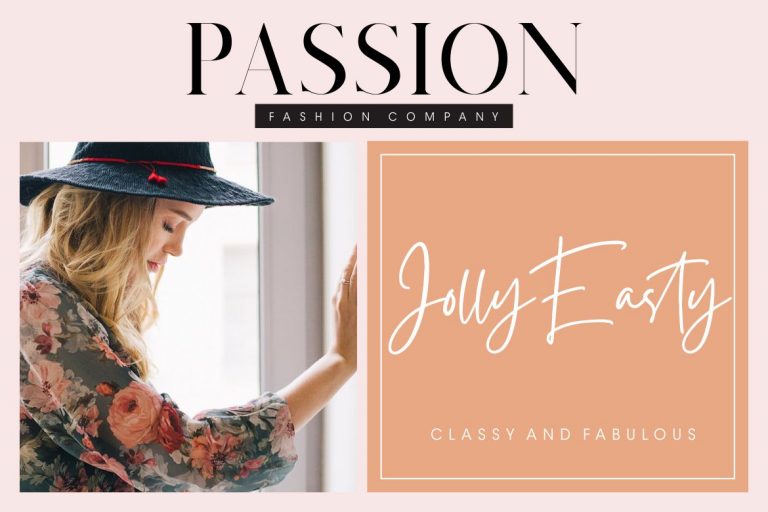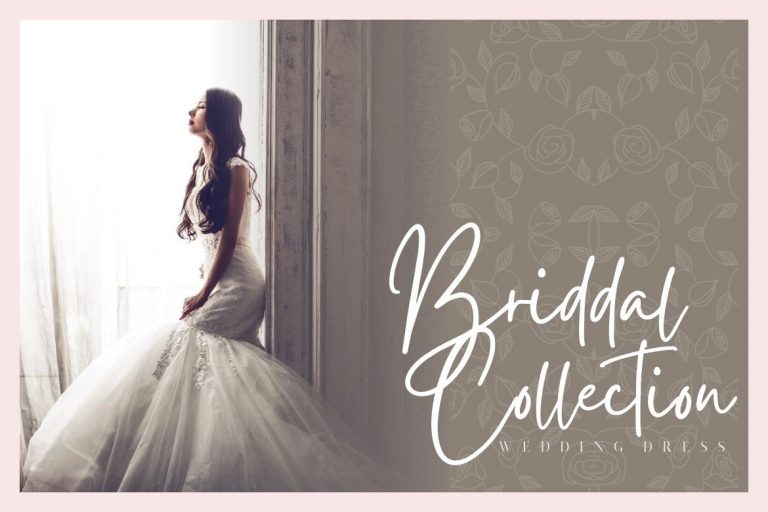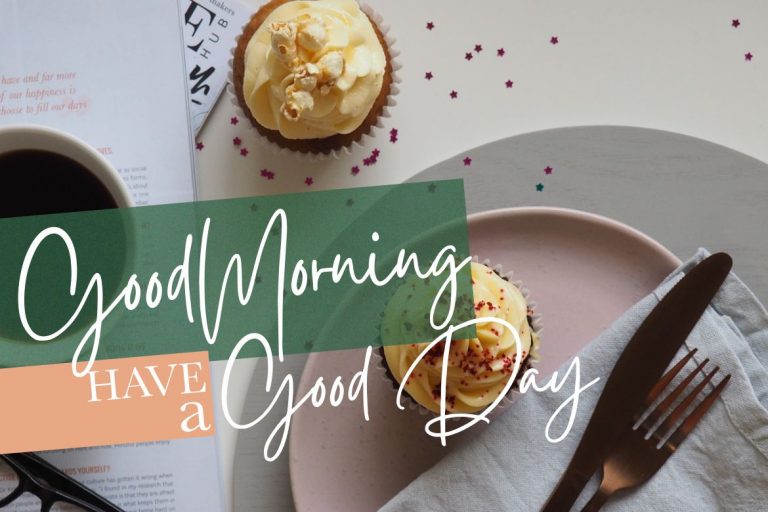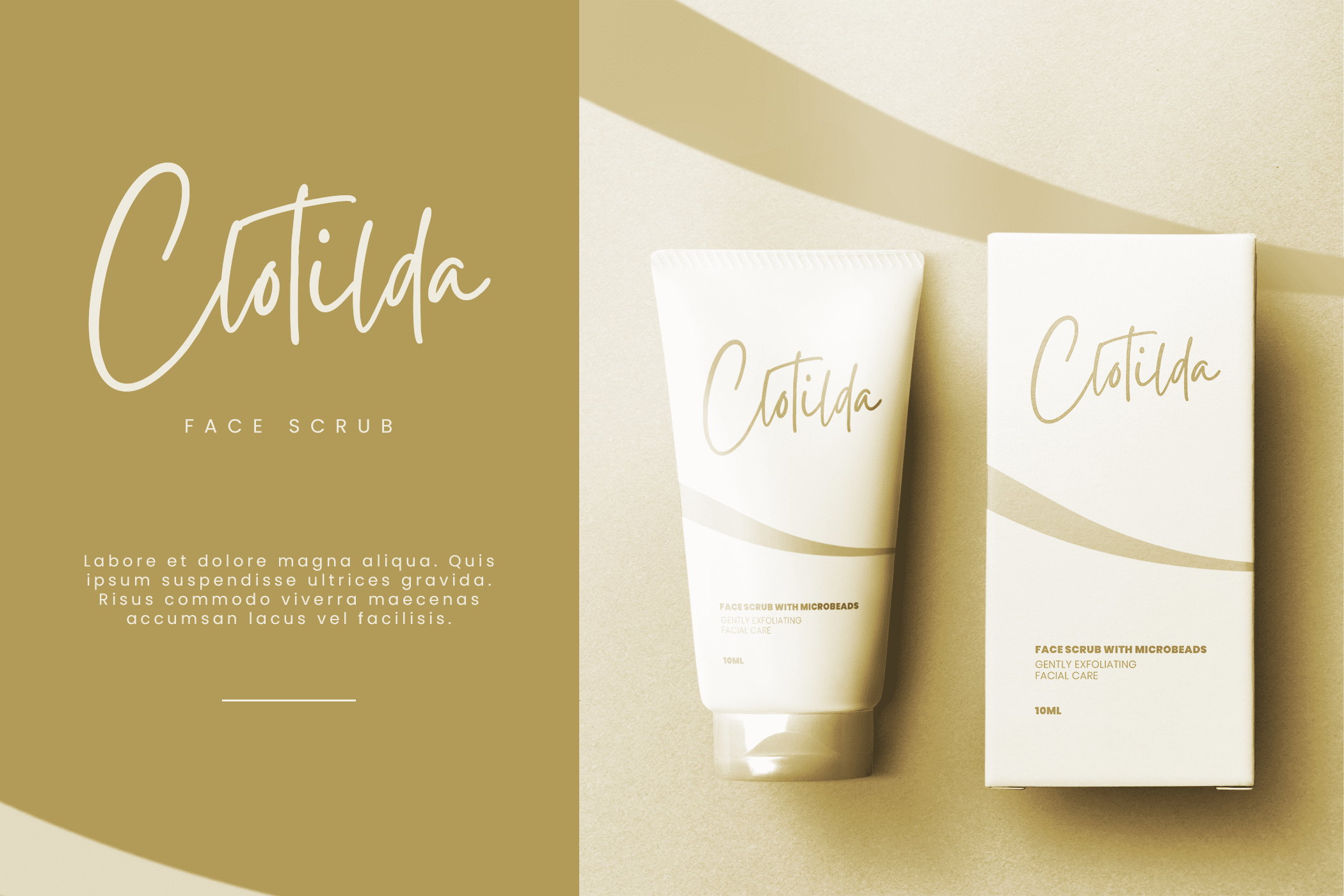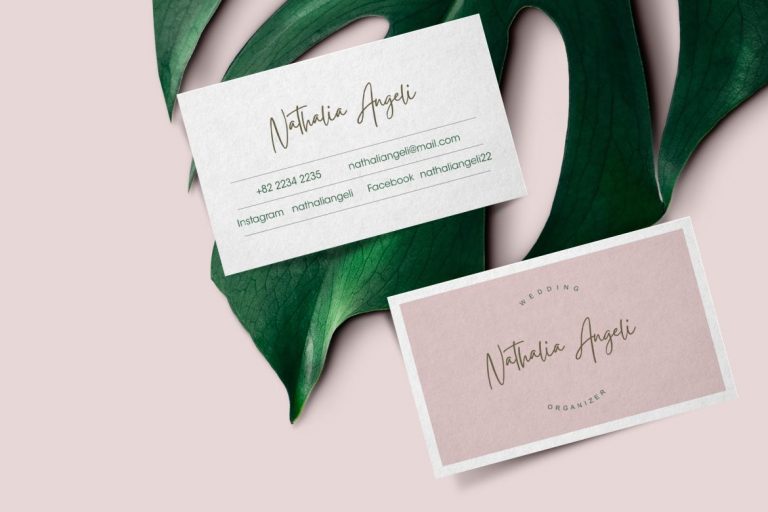
Gistesy Signature Collection is signature collection font with natural movement make looks elegant, classy and beauty for your latest project.
Gistesy Signature Collection is perfect for branding projects, logo, wedding designs, social media posts, advertisements, product packaging, product designs, label, photography, watermark, invitation, stationery and any projects that need handwriting taste.
- Fonts include multilingual support for; Afrikaans, Albanian, Czech, Danish, Dutch, English, Estonian, Finnish, French, German, Hungarian, Italian, Latvian, Lithuanian, Norwegian, Polish, Portuguese, Slovak, Slovenian, Spanish, Swedish.
Gistesy Signature Collection